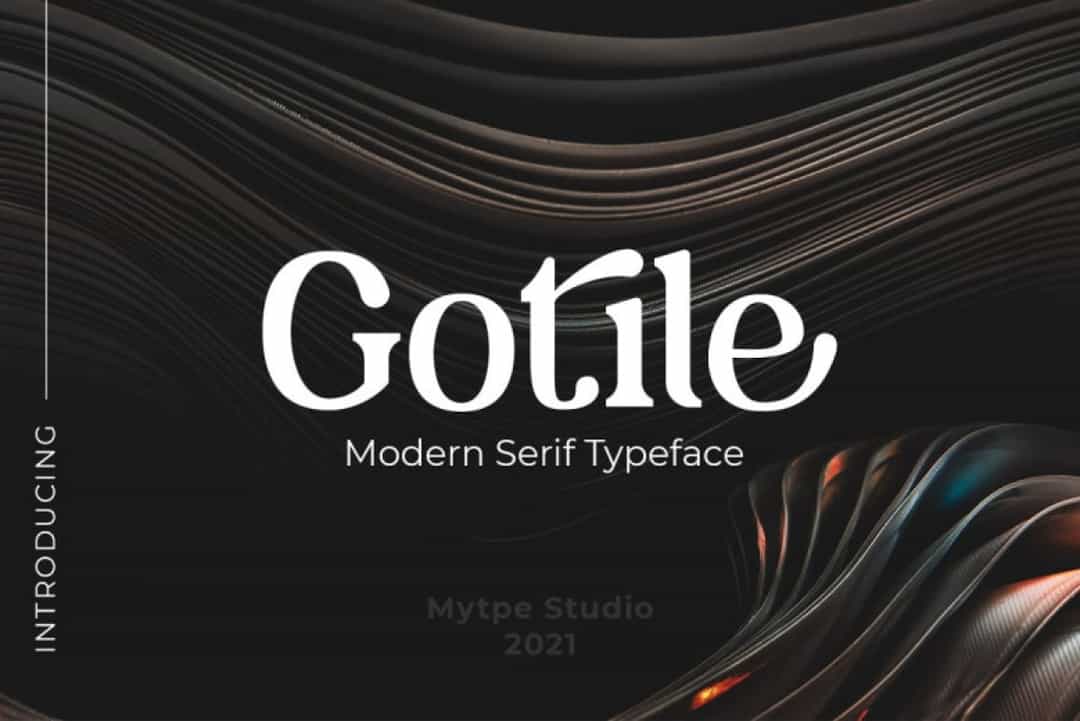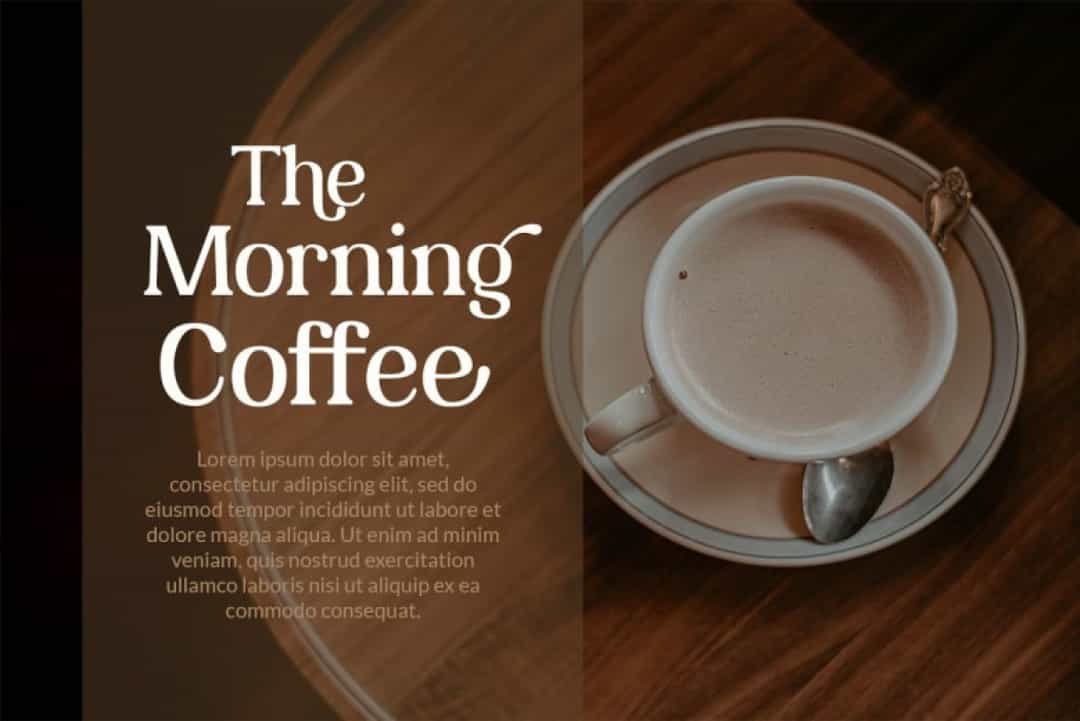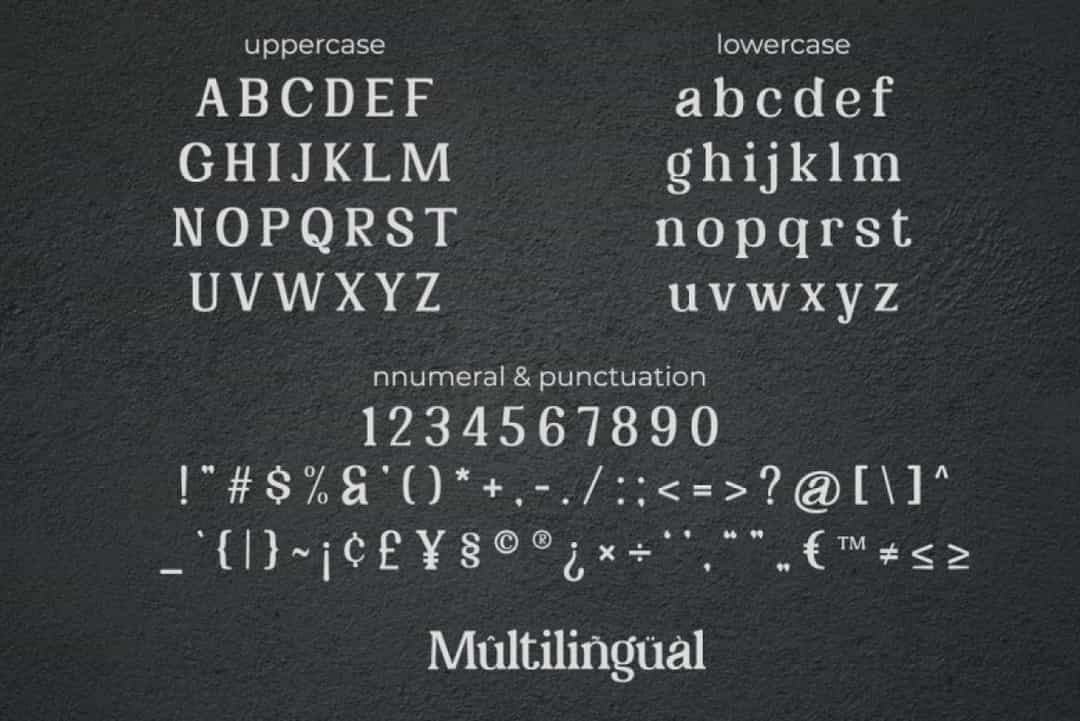
Gotile is a serif collection font with natural movement that adds elegance, classiness and attraction to any design project. Use it for quotes, t-shirt merchandise, title brand products and poster covers for books – anything requiring an air of sophistication is ideal use case of Gotile font.